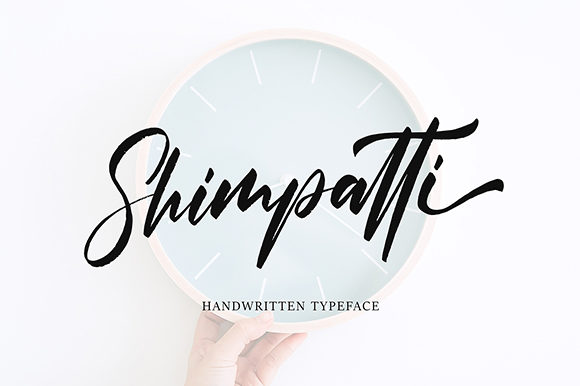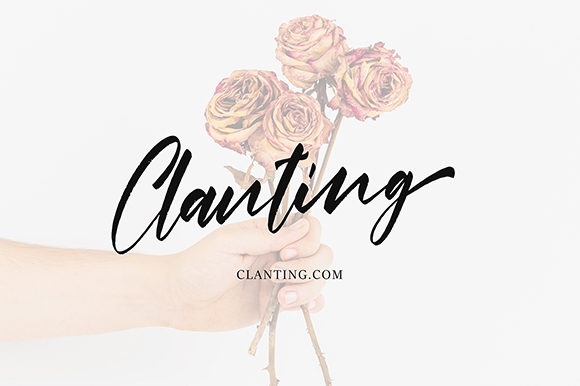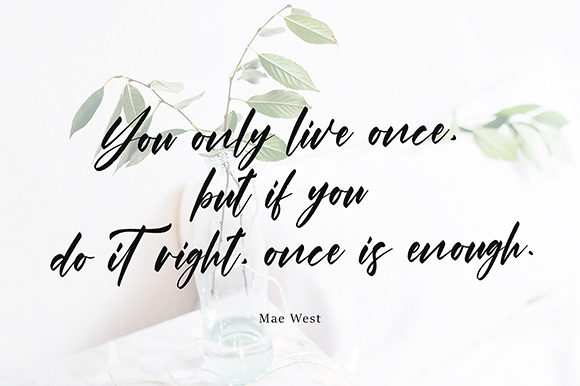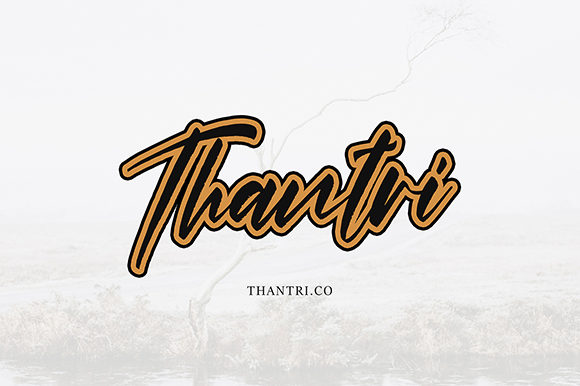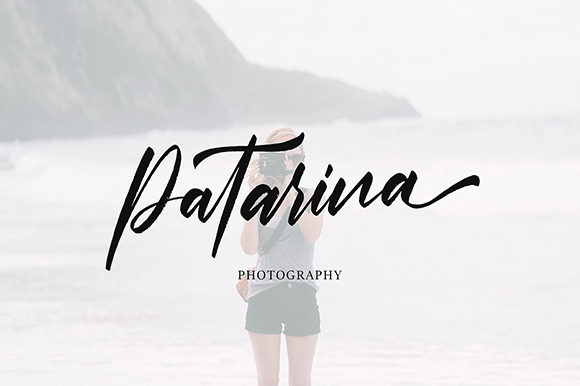
Shimpatti Font
About Shimpatti Font
Shimpatti is a fun and retro script font with beautiful characters. Get inspired by its unique feel, and turn any design idea into a stand out.